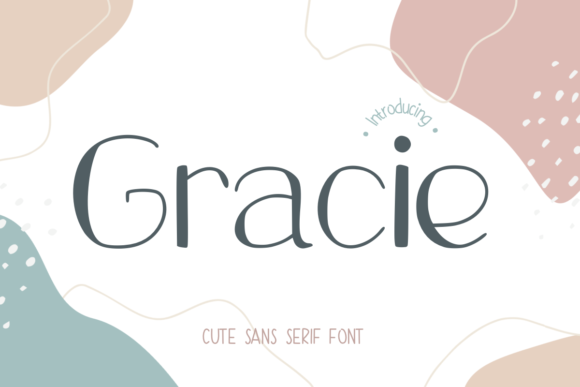
Welcome to the realm of visual allure, where typography meets artistry in perfect harmony. Prepare to be mesmerized by Gracie Font, a sans-serif masterpiece that oozes sophistication and timeless beauty. Step into a world where words dance with grace and elegance, leaving an everlasting impression.
Gracie Font is not just a collection of letters; it's an orchestra of characters, each note contributing to a symphony of visual harmony. Its delicate curves and sweeping lines evoke a sense of effortless elegance, while its sturdy structure ensures readability and versatility.
With Gracie Font, your creative projects will blossom into masterpieces. Imagine crafting Valentine cards that whisper sweet nothings, wedding invitations that exude romance, and stationary art that captures the essence of timeless charm. Your social media posts will transform into captivating visual feasts, leaving your audience spellbound.
Gracie Font is more than just a font; it's an invitation to unleash your creativity and embark on a journey of self-expression. Its wide range of applications makes it the perfect choice for any project, from personal endeavors to professional pursuits. Whether you're a blogger, a designer, or simply a lover of beautiful fonts, Gracie Font is your perfect companion.
Embrace the allure of Gracie Font and watch as your creative vision takes flight. Its timeless beauty and versatility will elevate your projects to new heights, leaving an unforgettable mark on the hearts of your audience. Unleash the power of words and aesthetics, and let Gracie Font guide you to typographic greatness.